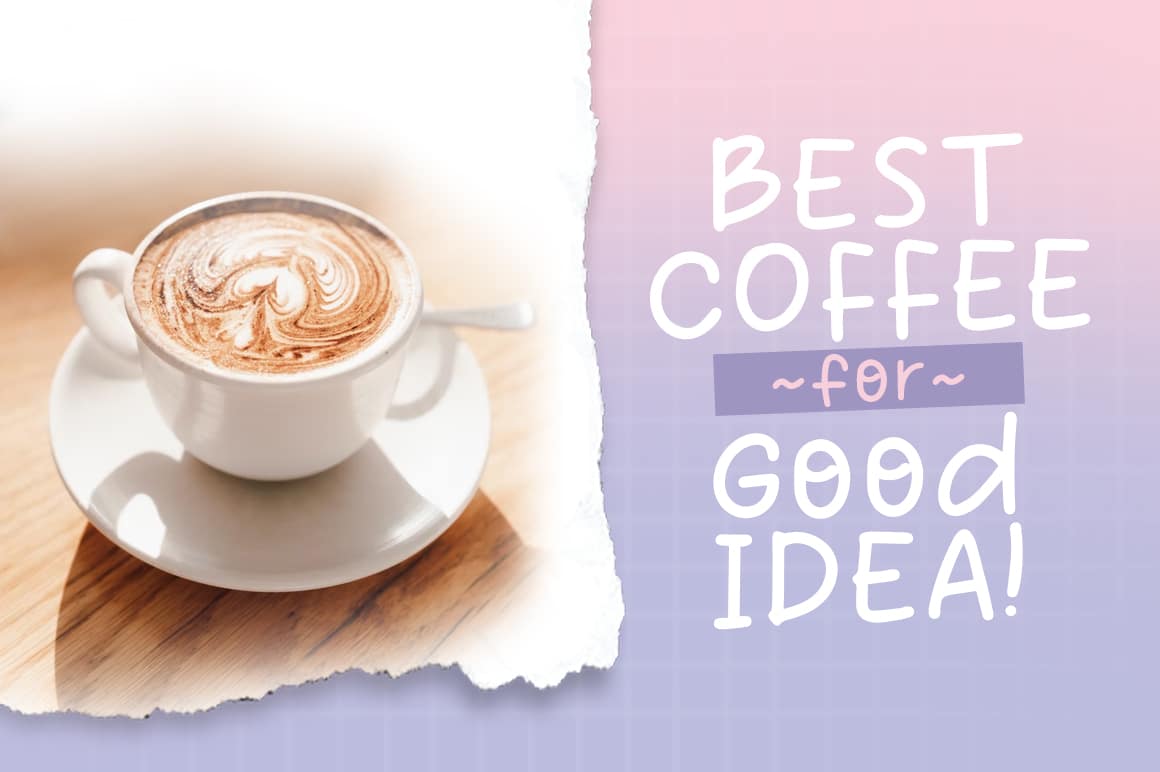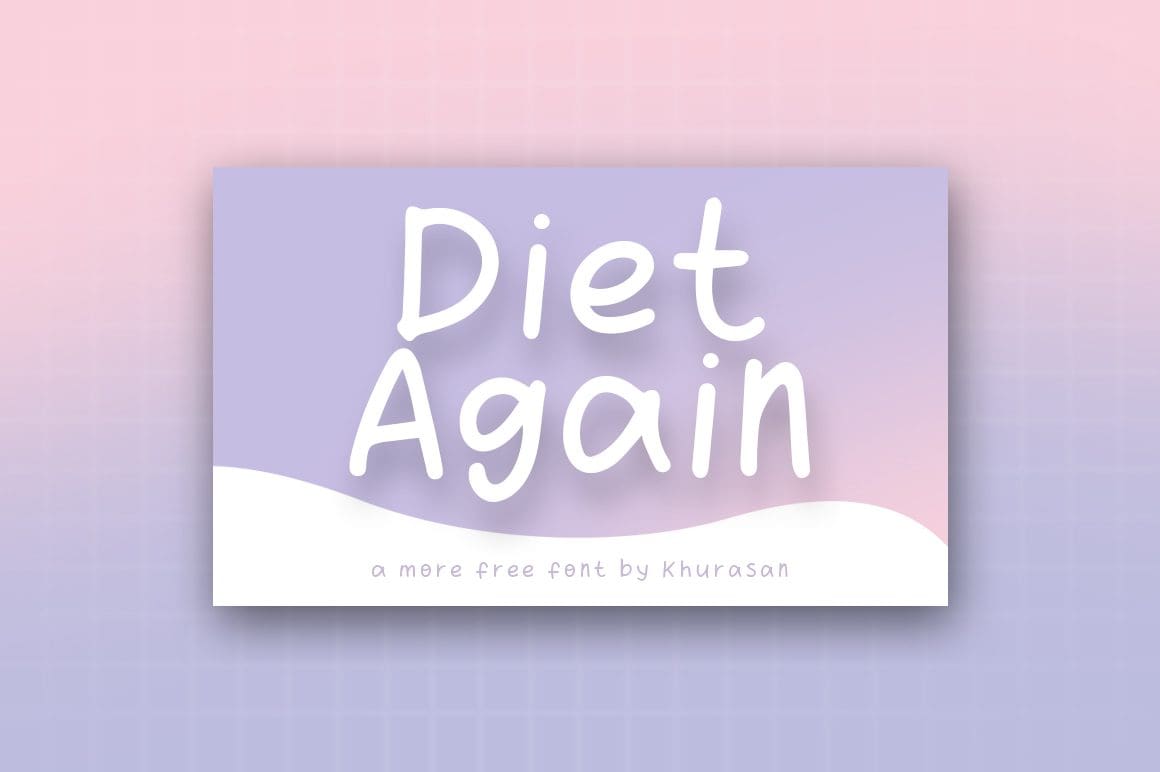
Diet Again Font
Diet Again is a modern and fancy display font perfect for posters, logos, magazines, book covers, banners, and many more! Get this amazing freebie, and use it to create lovely designs!